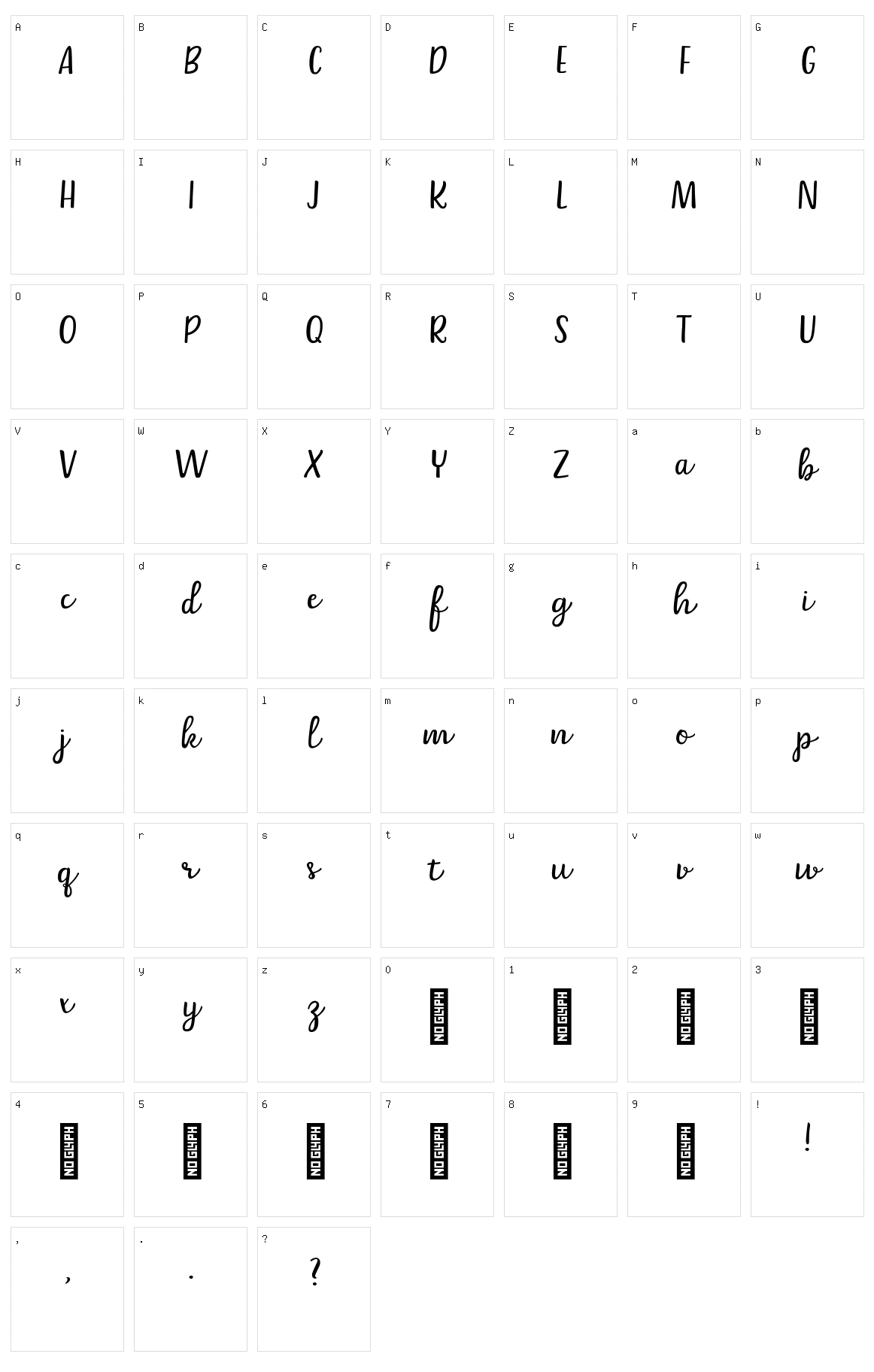
The free font Belle Helene is carefully designed by Studio Indigo, showcasing a thoughtful balance of creativity and usability and falls under the Script font style. When you download the ZIP file, it contains only 12.04 KB of font files, making it lightweight and quick to download. Please review the license details below to understand permitted usage and distribution rights. If license information is not available, we recommend using this font for personal projects only or contacting the author directly for commercial usage permissions.